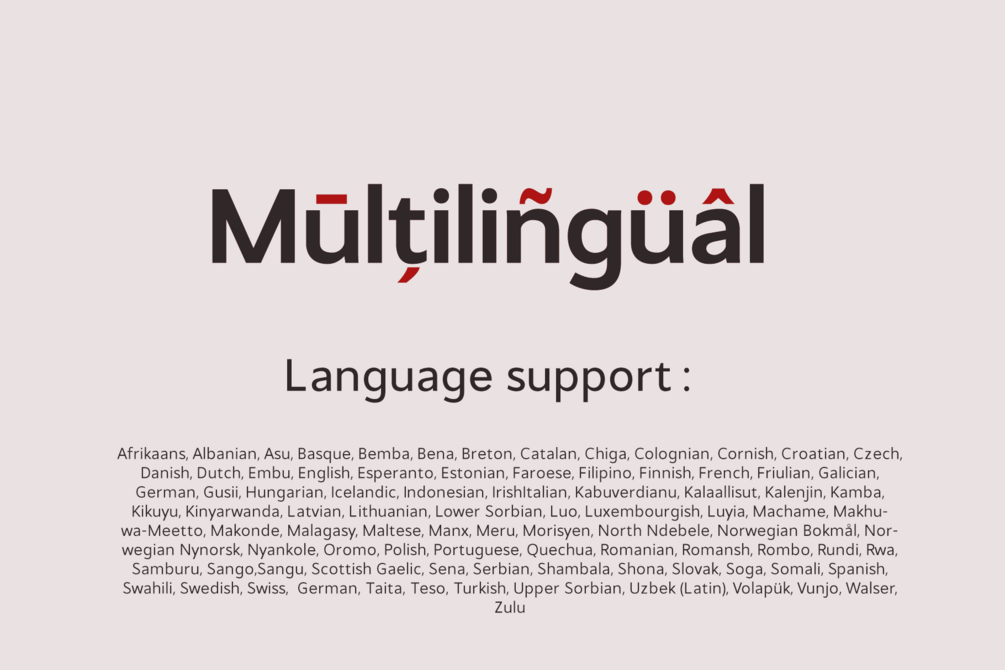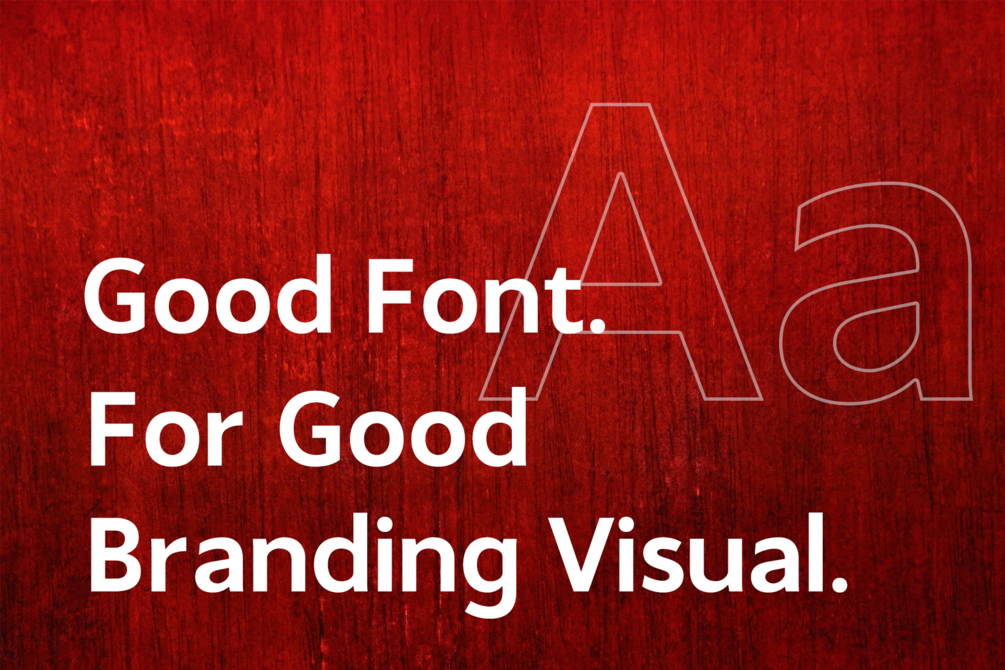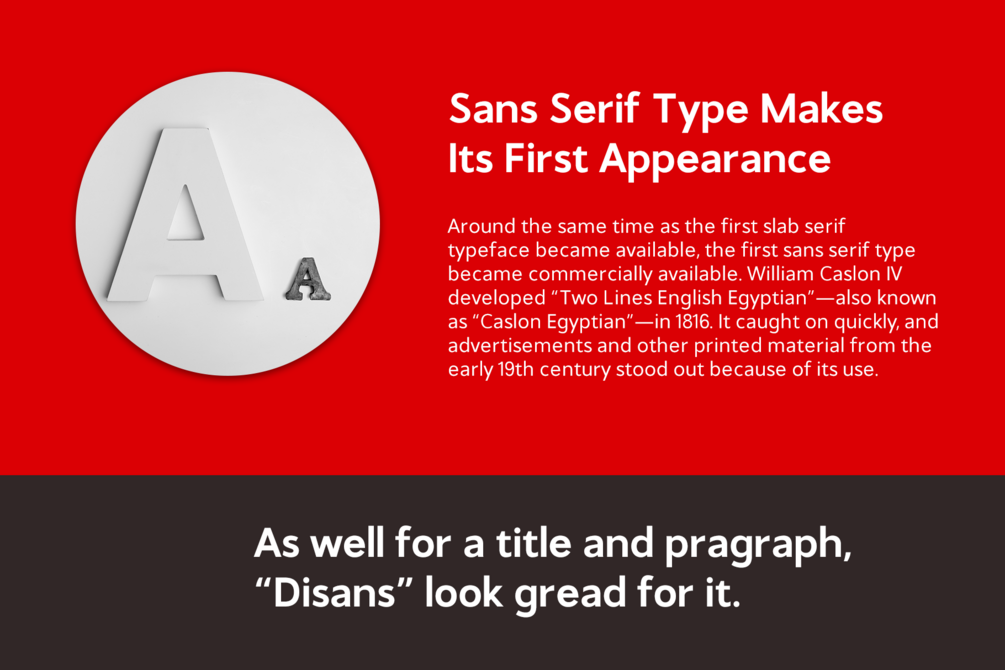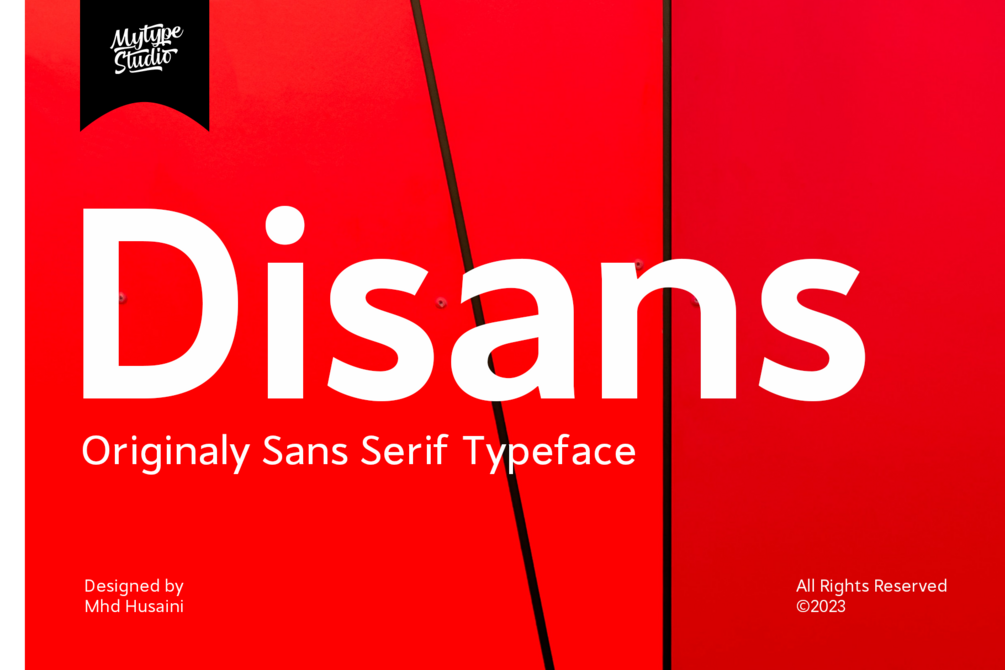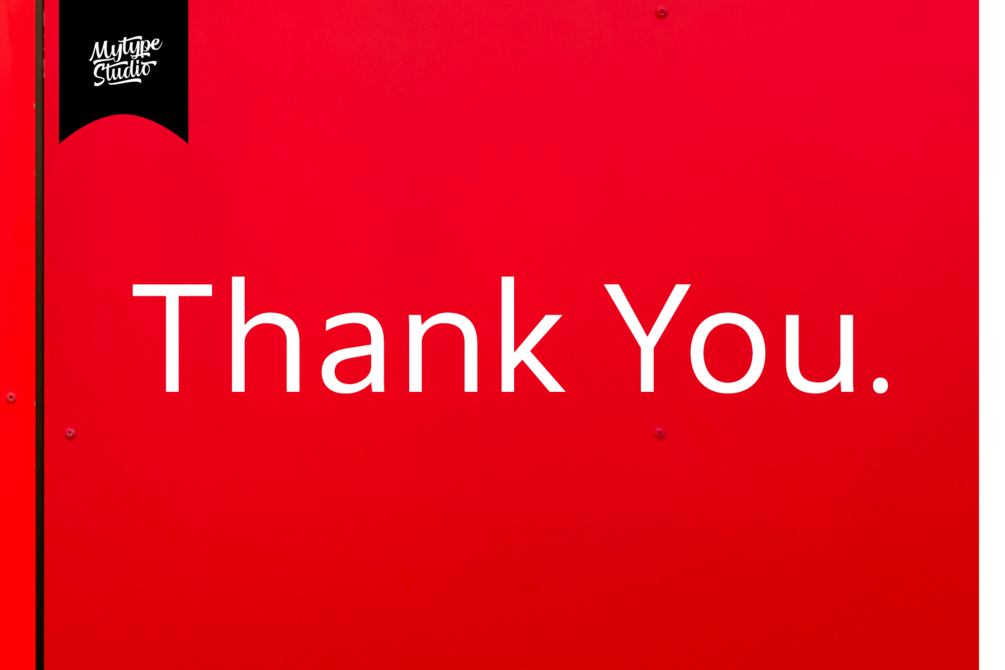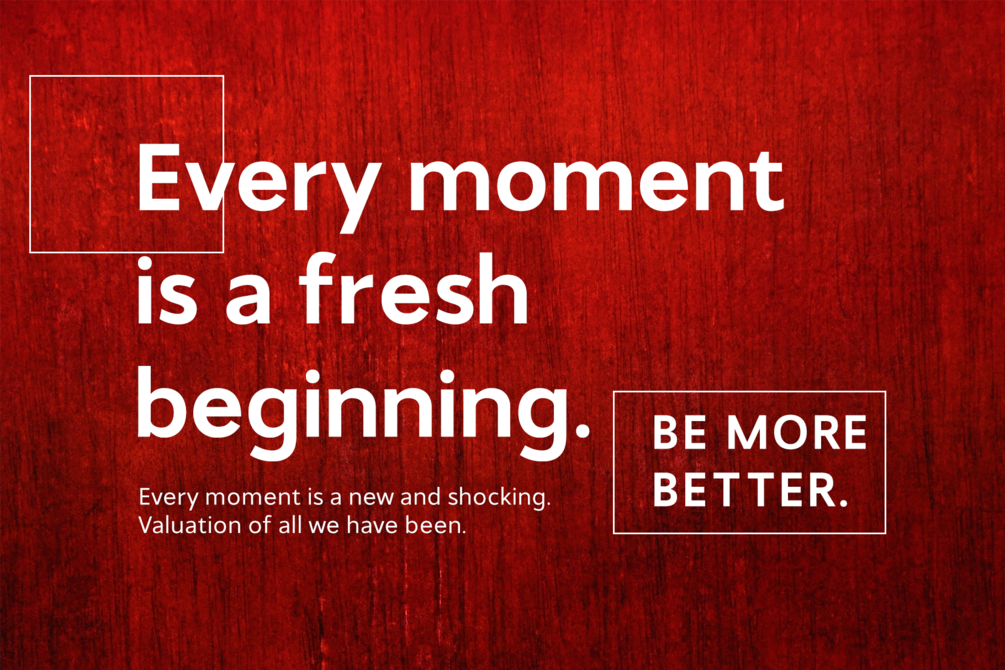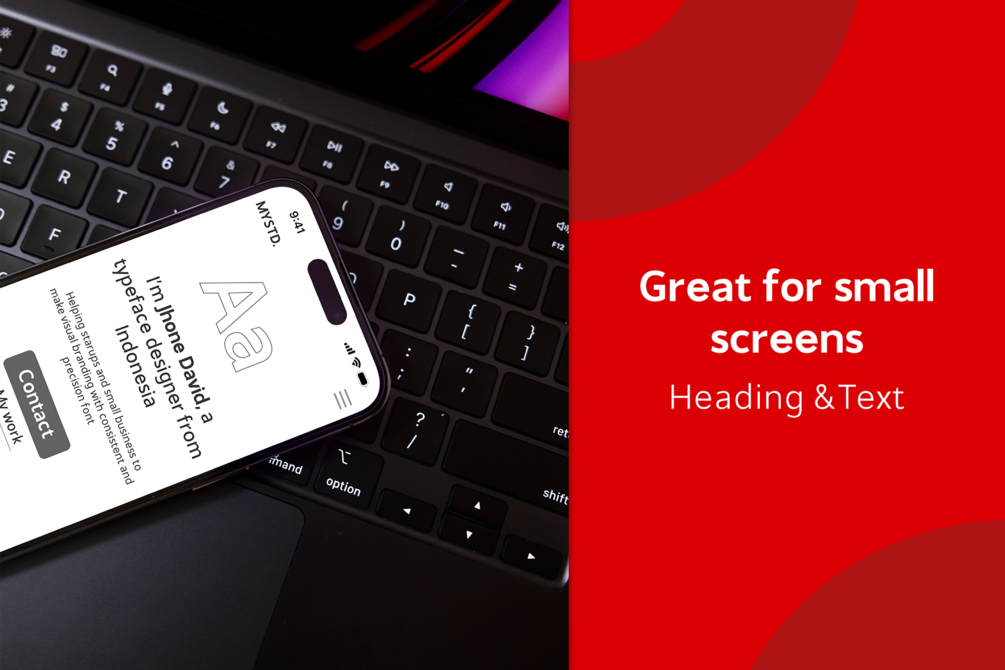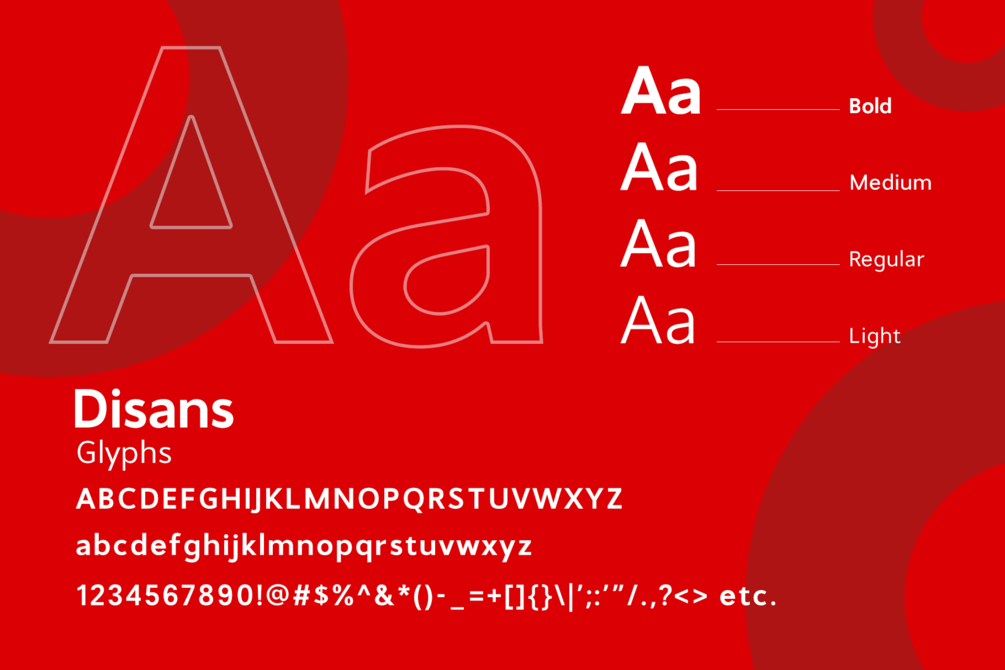
Disans - Sans Serif Typeface
Introducing Disans: The Modern Sans Serif Font
Elevate Your Design with Sleek and Contemporary Typography
Meet Disans, a modern sans serif font crafted to bring sophistication and clarity to your design projects. With its clean lines and versatile weights, Disans is perfect for everything from sleek web design to bold print materials.
Key Features:
• Modern Design: Disans features a clean and contemporary aesthetic that enhances readability and visual appeal.
• Four Versatile Weights: Choose the perfect weight for your project with Disans’ comprehensive range of four weights.
Why Choose Disans?
Contemporary and Clean: Disans combines modern design principles with timeless simplicity, making it suitable for a wide range of applications.
Perfect for Multiple Uses: Whether you're designing for digital or print, Disans' clarity and elegance make it an excellent choice for headlines, body text, and everything in between.
Enhanced Readability: Disans' balanced letterforms and optimal spacing ensure that your text is always easy to read, providing a smooth and enjoyable reading experience.
Weights:
• Light: Perfect for subtle and refined text.
• Regular: Ideal for a balanced and standard look.
• Medium: Adds a touch of boldness without overpowering.
• Bold: Makes a strong statement with impactful text.
Transform Your Typography with Disans
Disans is more than just a font; it’s a tool for modern expression. Its sleek design and versatile weights make it the perfect choice for designers who value both aesthetics and functionality.